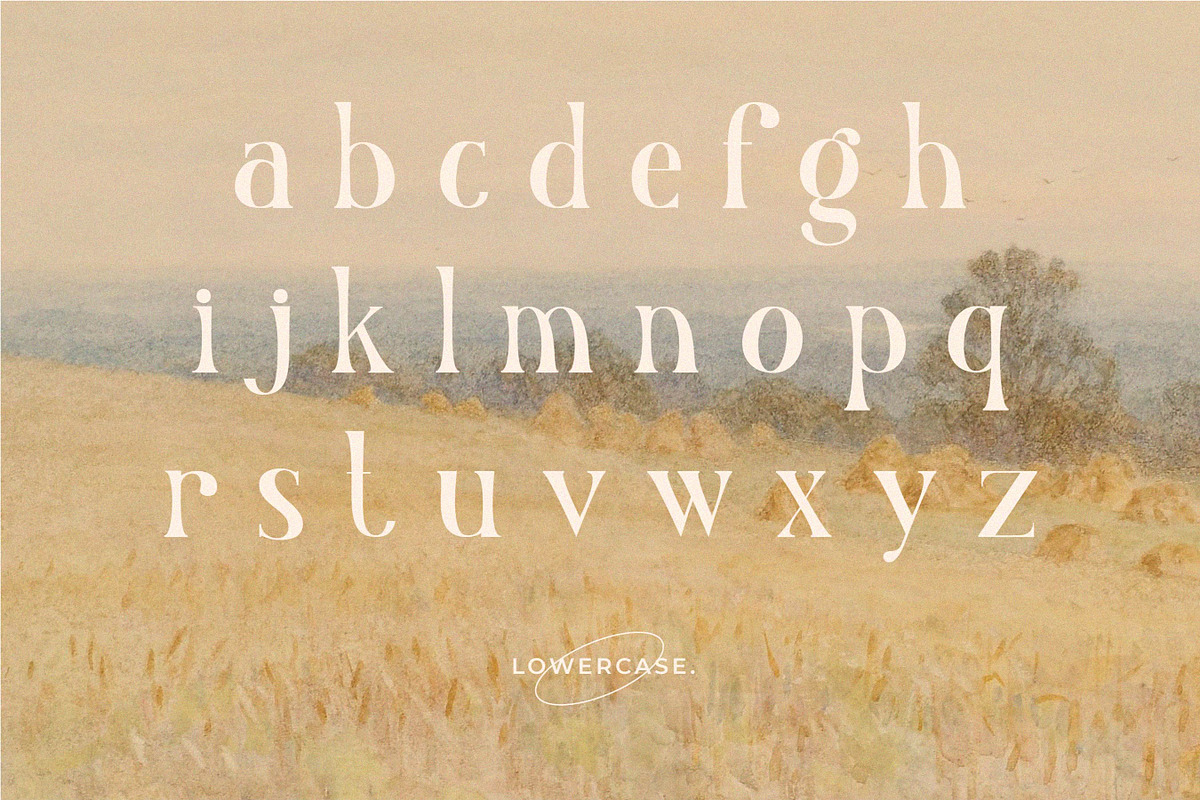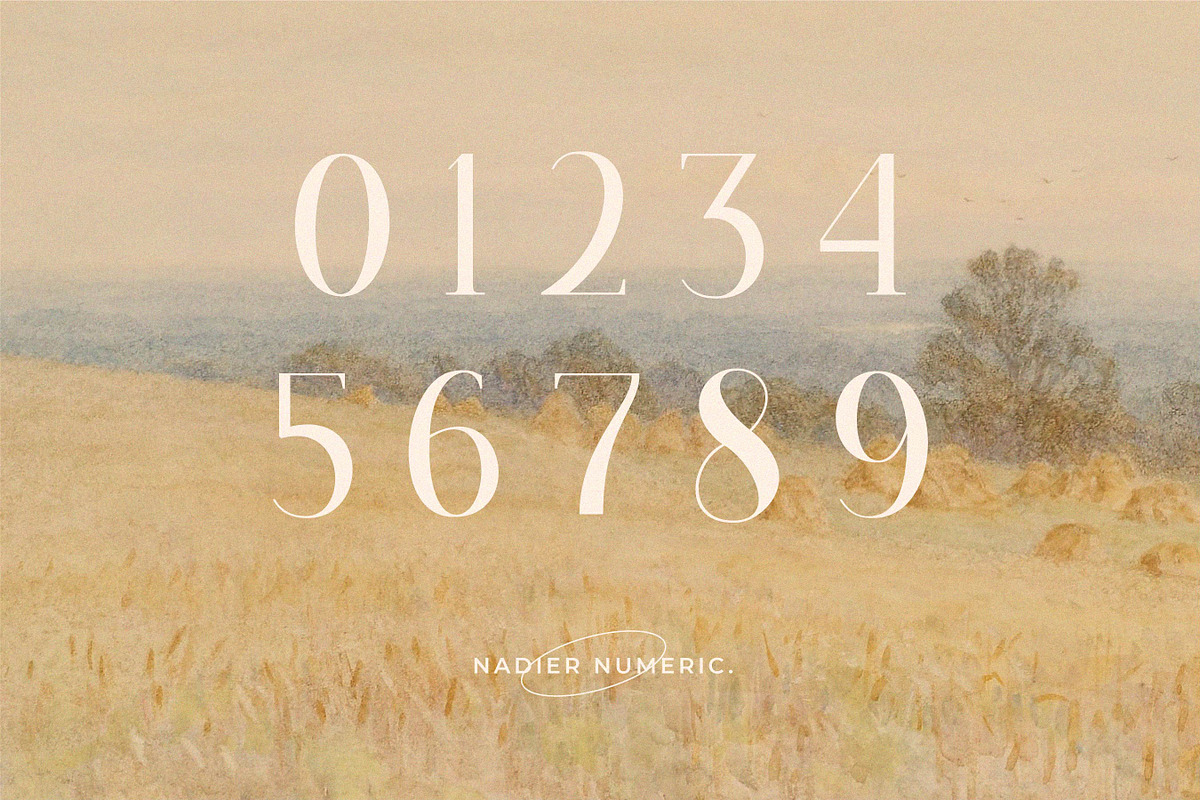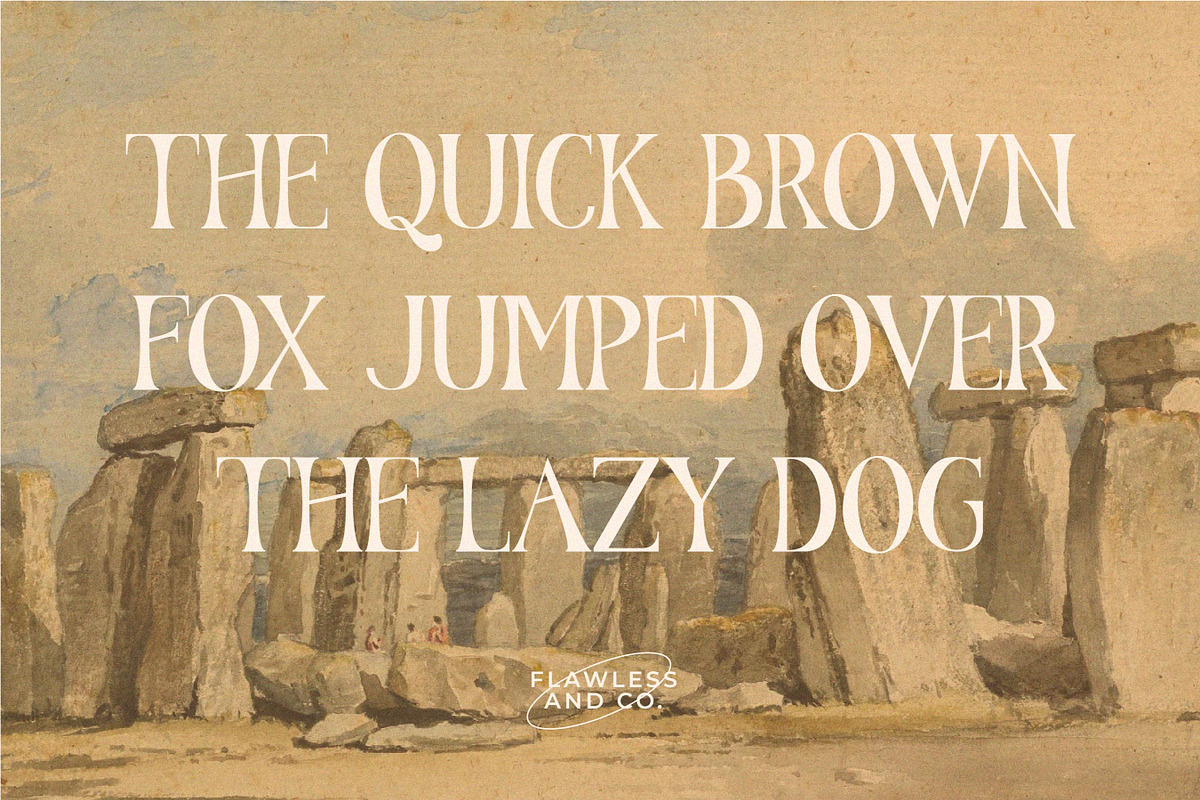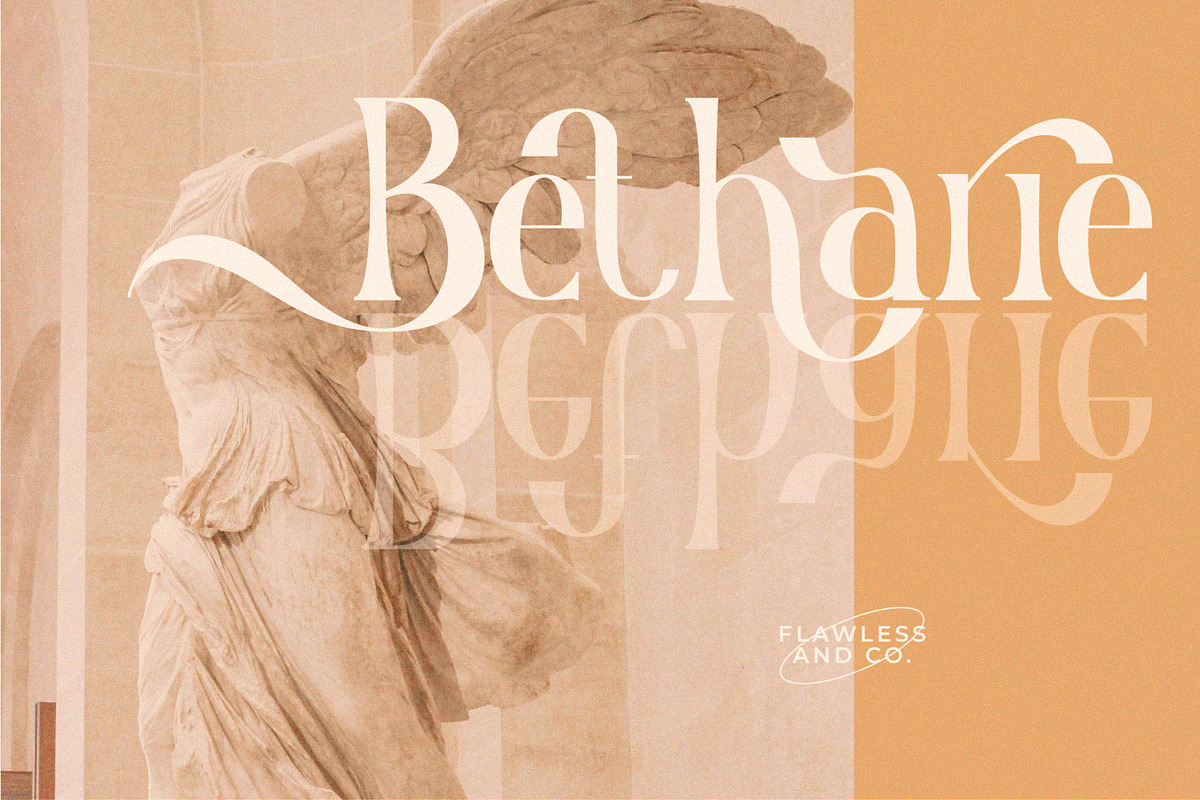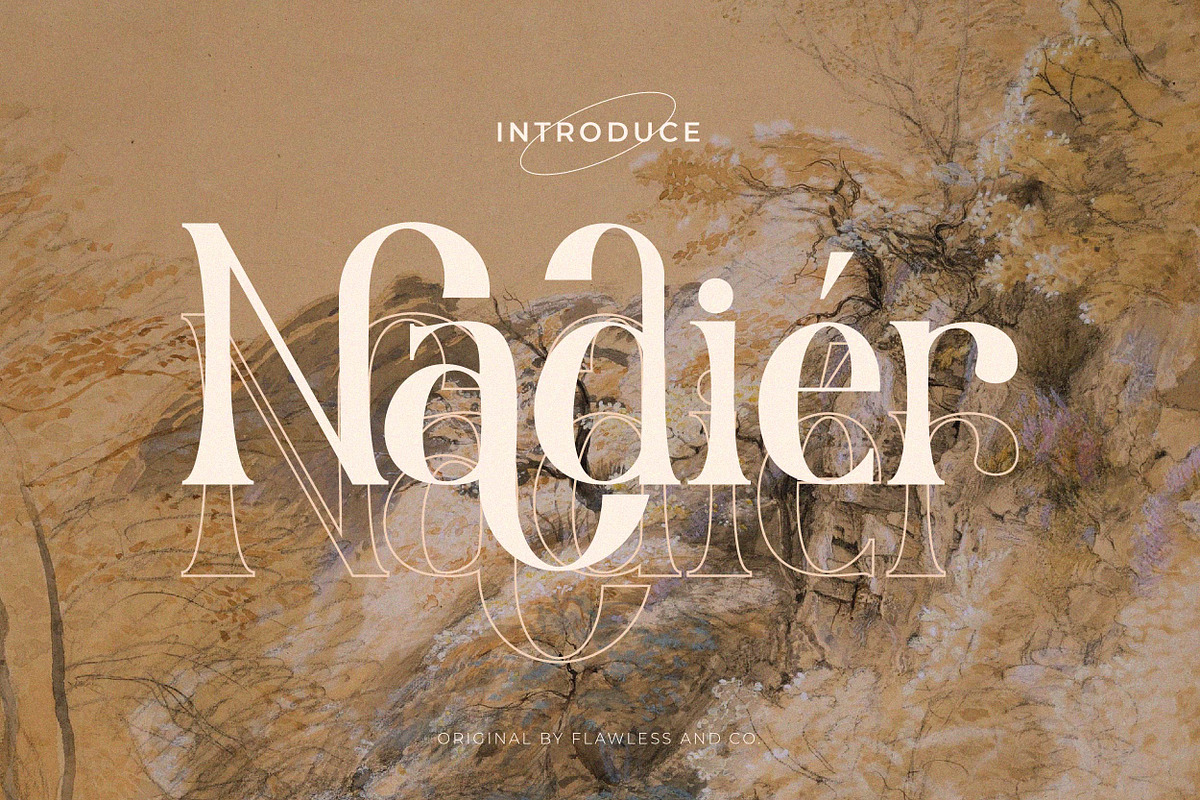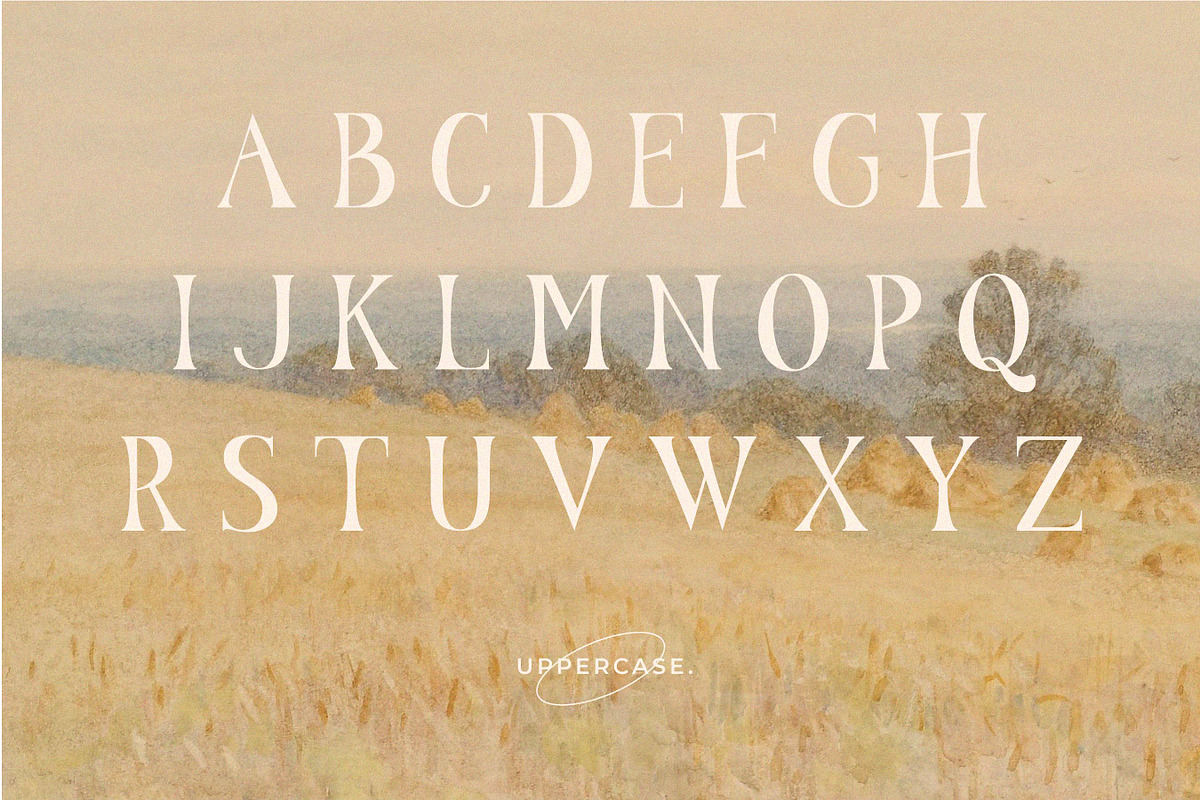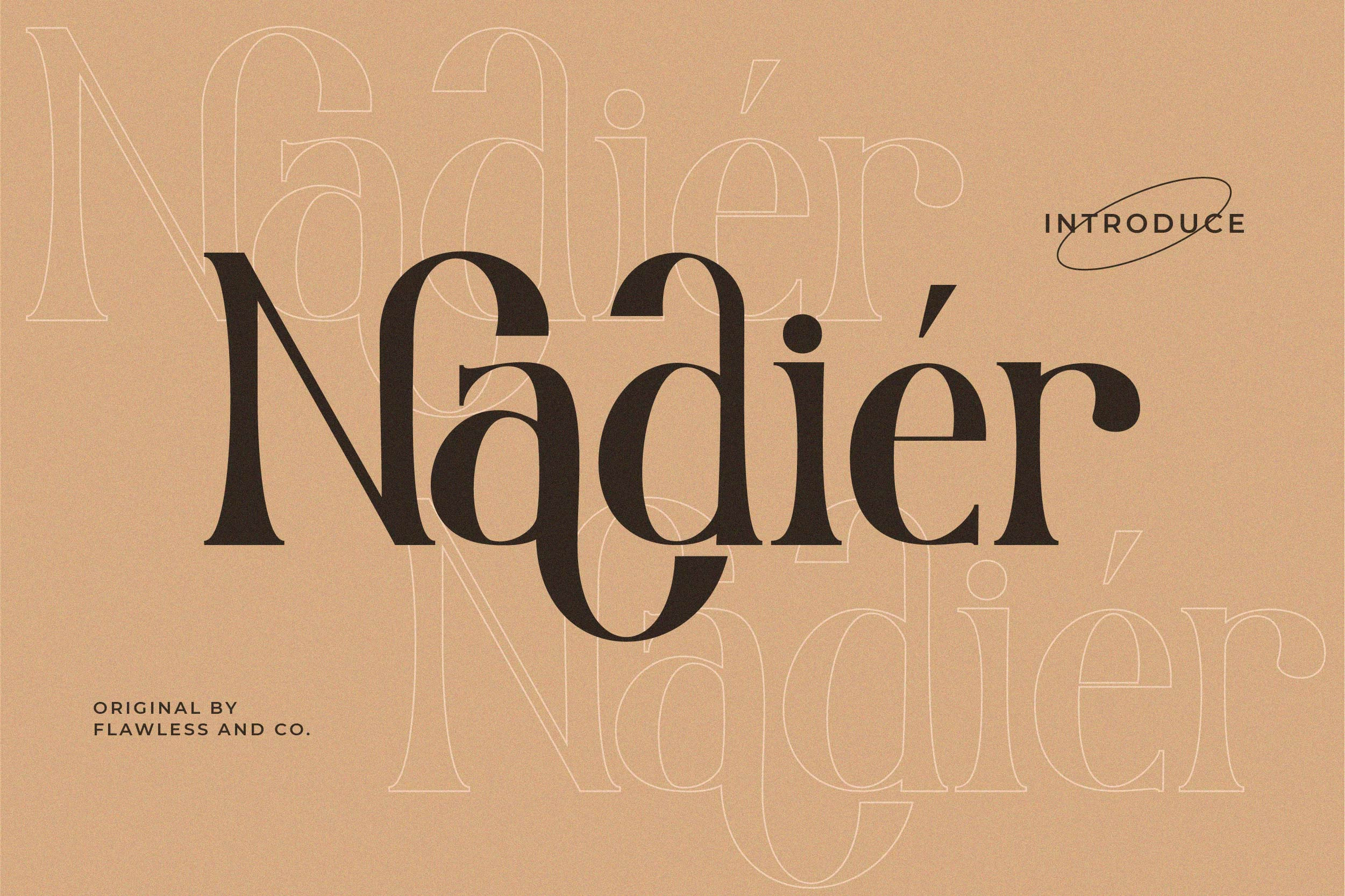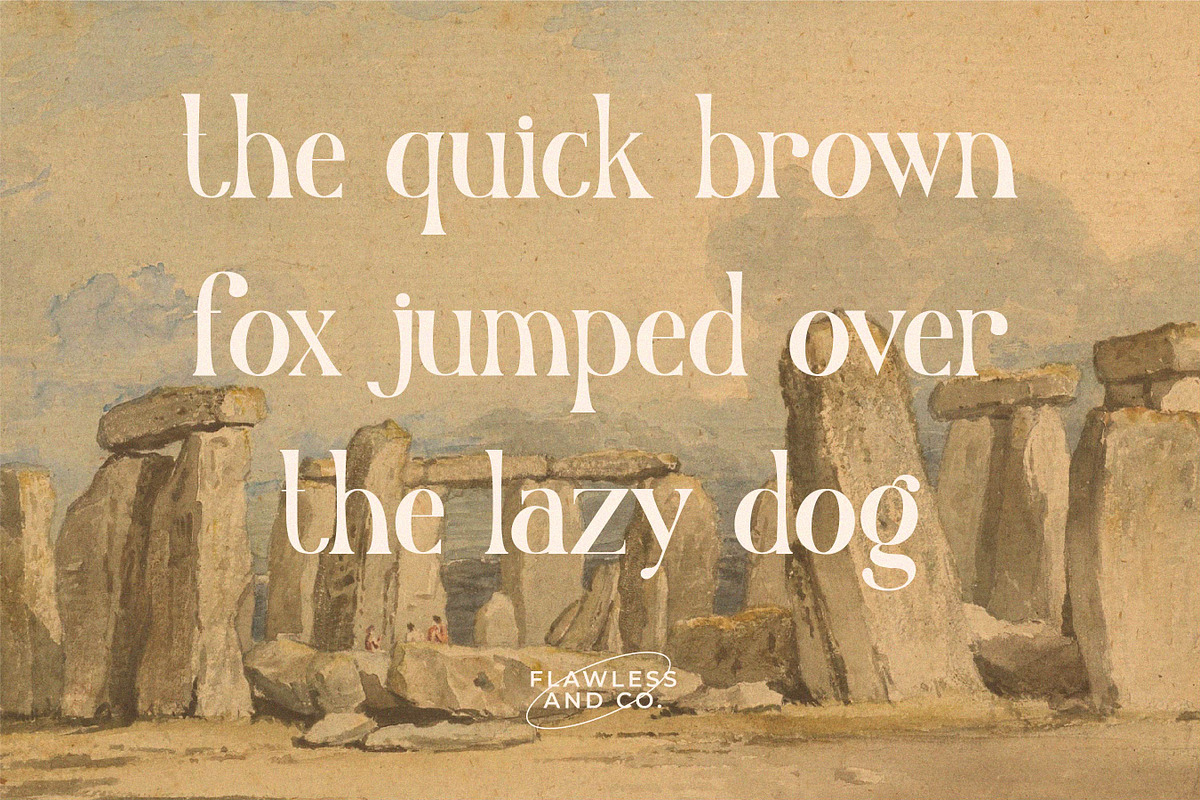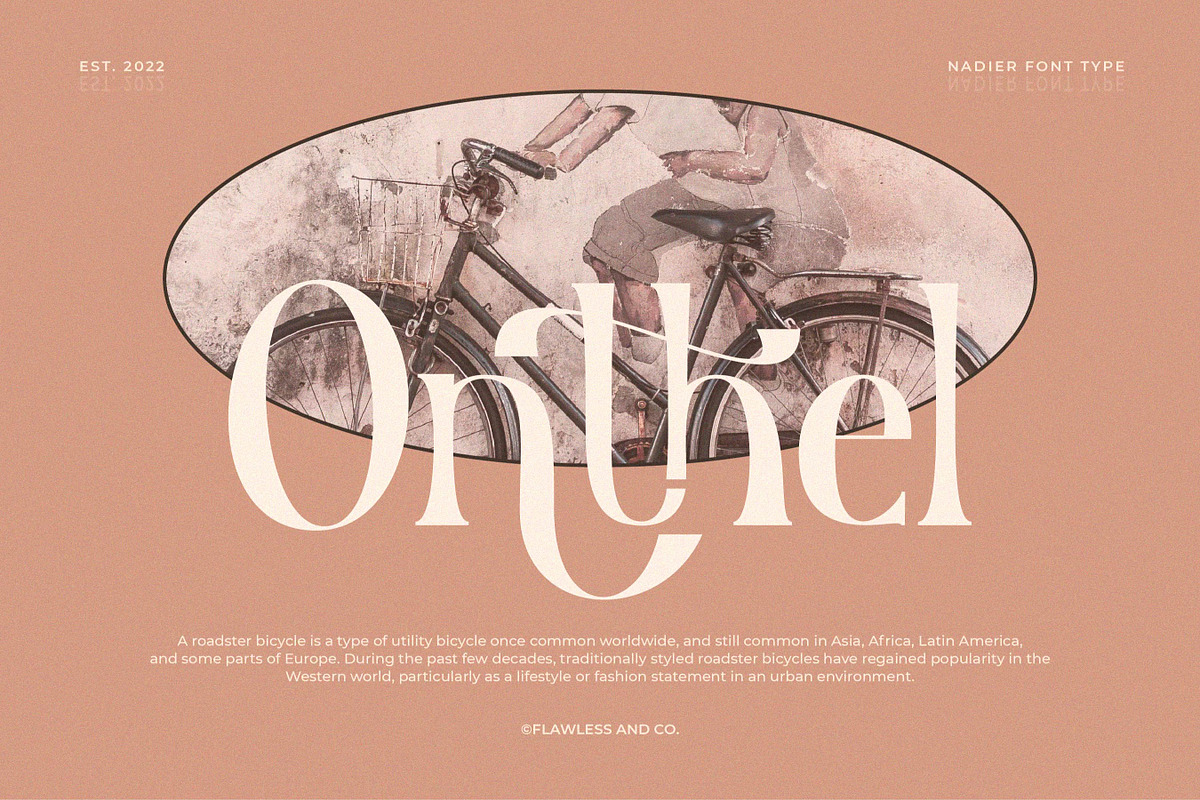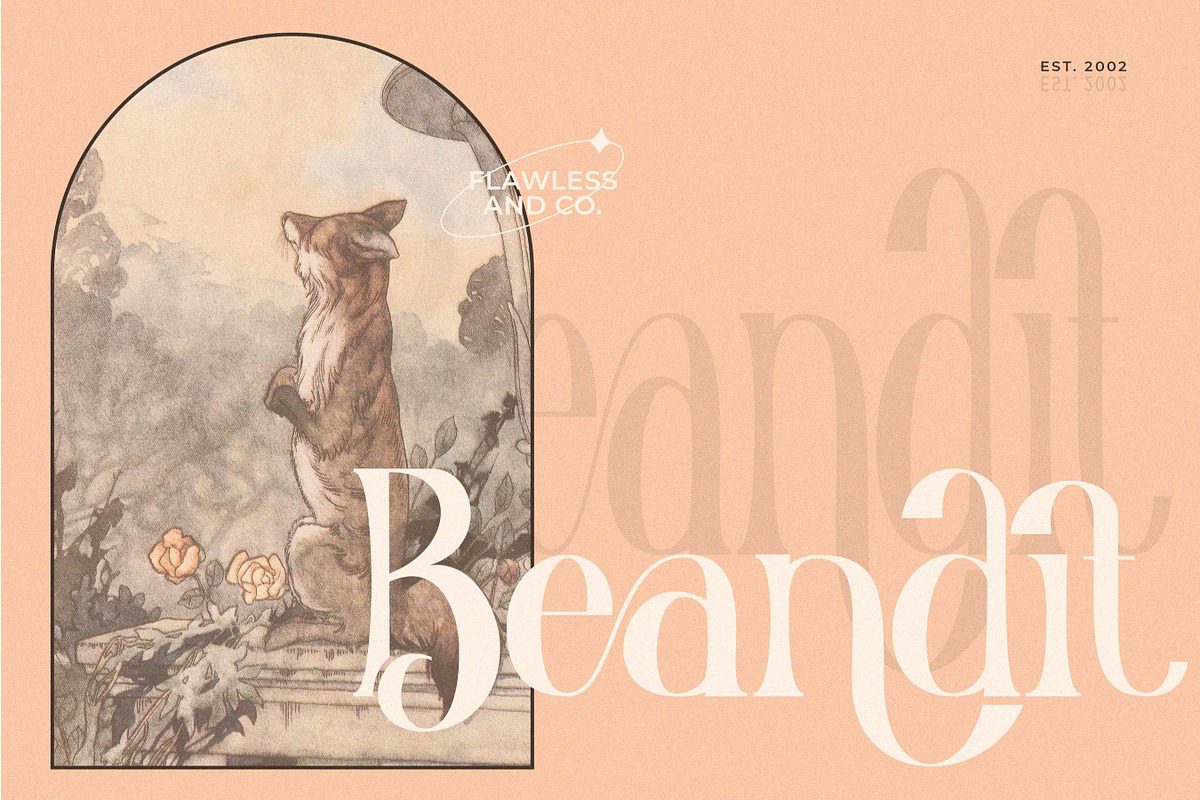
Nadier - Classic Retro Typeface
our latest creation, modern serif with various alternates and ligatures, multilingual support, an updated blend of bohemian style, suitable for branding, business, logos, magazines, and others
Multilingual Uppercase alphabet A-Z Lowercase alphabet a-z Alternate Character Numbers 0-9 Some punctuation